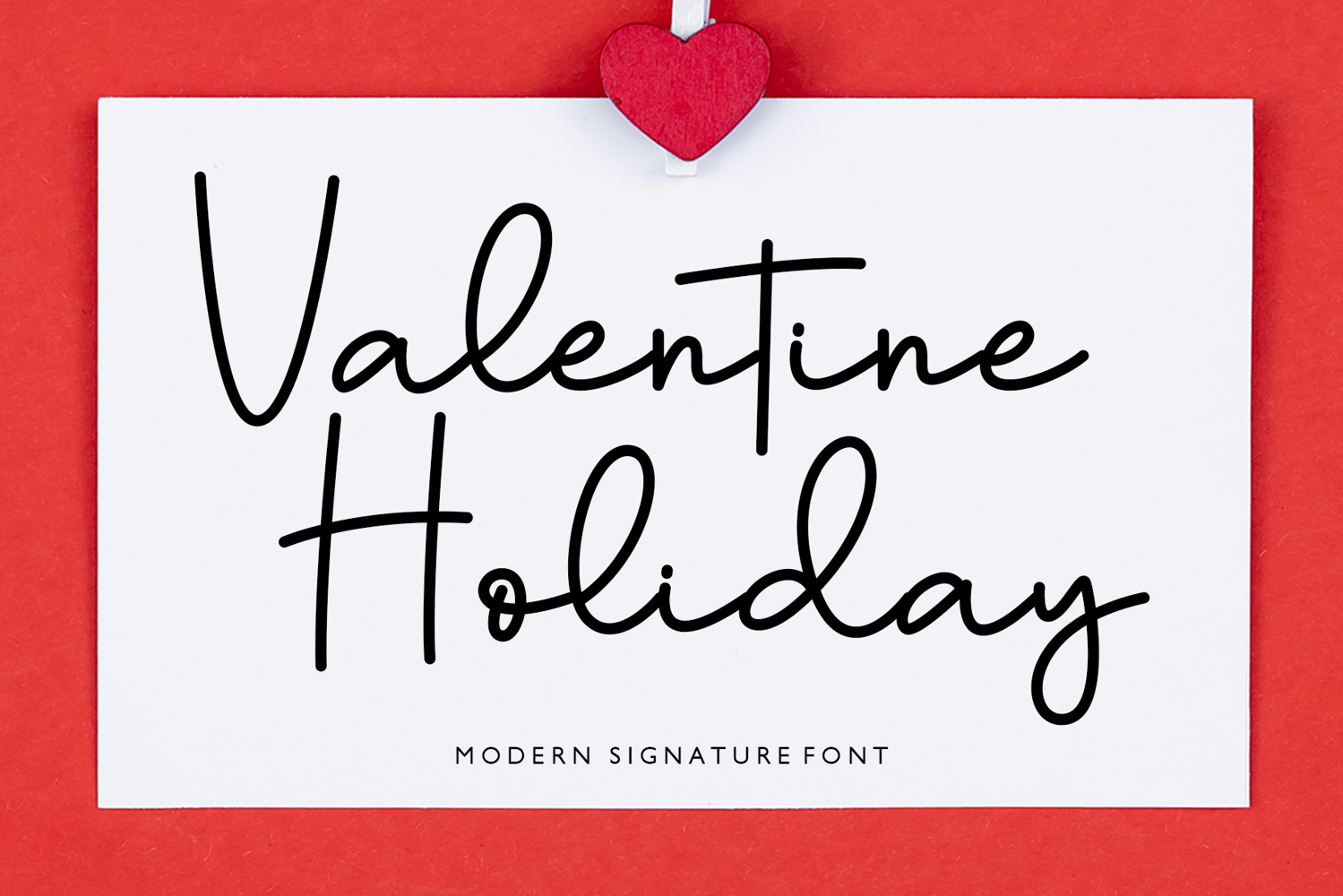
Valentine Holiday
Introducing Valentine Holiday – a delightful, artistically rendered font that exemplifies beauty and charm. Imbued with an elegant flair, its handwritten style adds a touch of grace and sophistication as it effortlessly harmonizes with your Valentine’s Day projects. It effortlessly infuses a tender, emotive vibe into any design milieu, making it a sublime choice for any work of art that demands a dash of elegance.